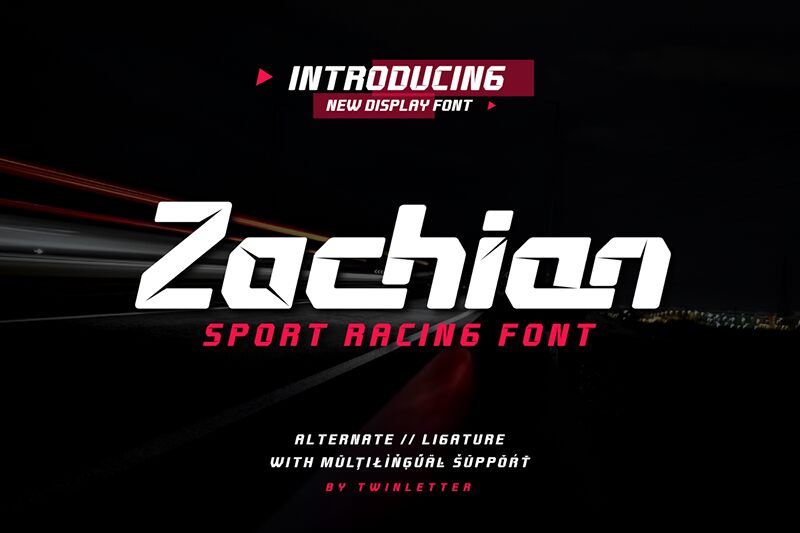
Zachian Trial Regular
Zachian font by Twinletter is a techno display font that showcases a bold, futuristic aesthetic. Its geometric and angular design elements contribute to the clean, structured look. Evoking a modern and tech-inspired feel, it effortlessly blends contemporary style with visual clarity.
Free for use in projects of all nature, Zachian’s impeccable shapes can be featured in posters or banners for technology fairs or car exhibitions. Design sci-fi book covers or apps/web pages as well as branding designs for tech businesses and futuristic advertisement concepts.